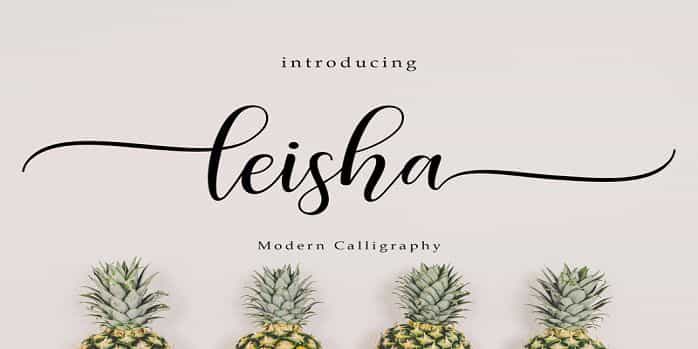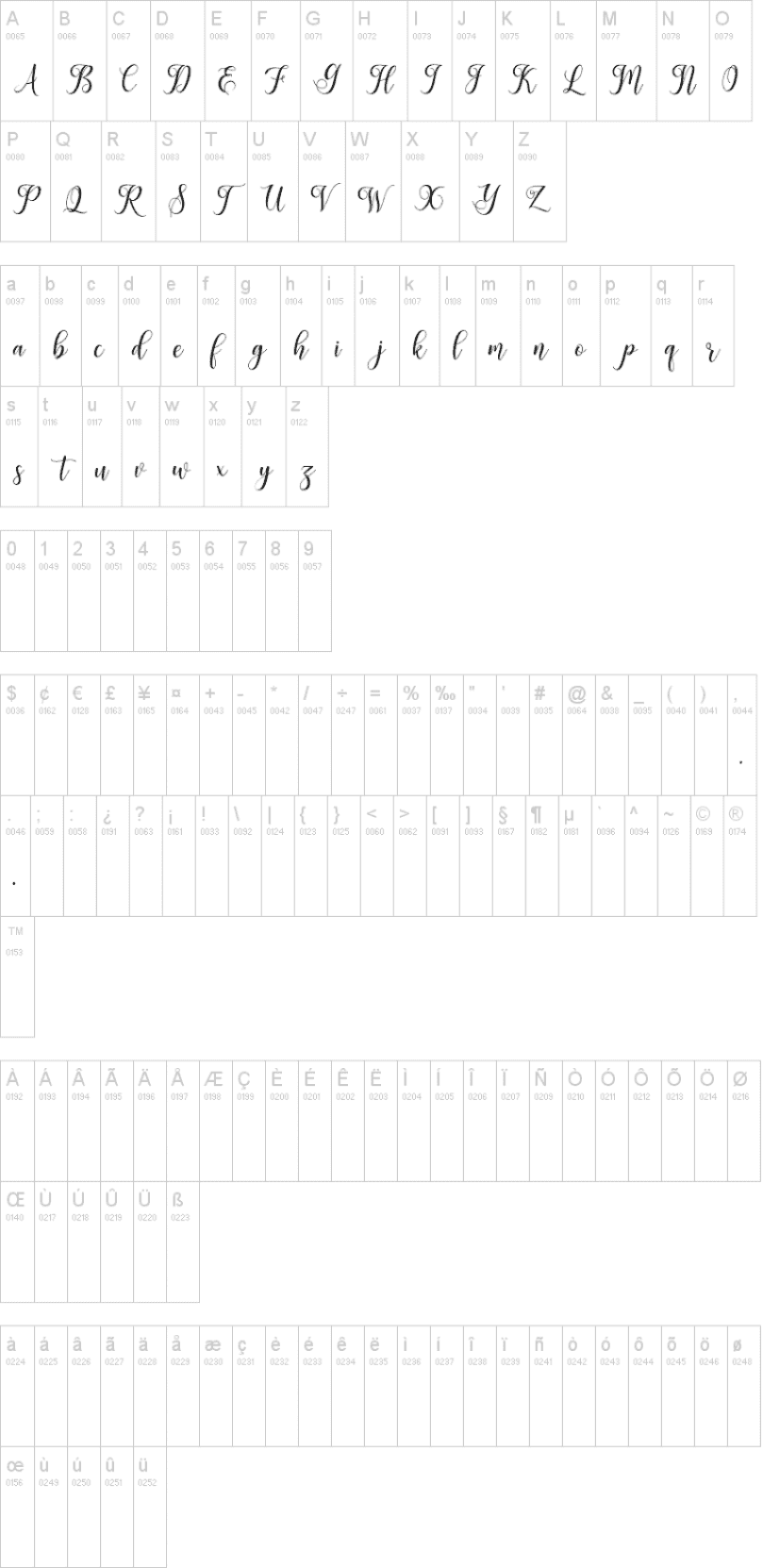
Leisha Script has been designed with 200+ glyphs. The other characters that were available were grouped under different Open Type features including; Swash, Stylistic sets, Stylistic alternates, Contextual alternates. The Open Type features can be used using Open Type wise software like Adobe Illustrator, Adobe InDesign, Adobe Photoshop Corel Draw X version, And Microsoft Word.